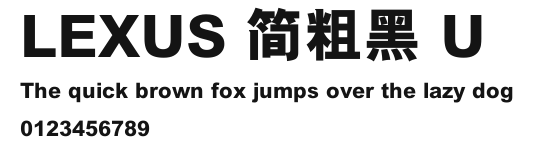
LEXUS 简粗黑 U Preview
• Font Name: LEXUS 简粗黑 U
• Font Style: Xbold
• Font ID: Monotype HeiGB Xbold
• Full Font Name: LEXUS 简粗黑 U
• PostScript Name: LEXUS-HeiS-Xbold-U
About LEXUS 简粗黑 U.TTF
LEXUS 简粗黑 U.TTF is a modern, elegant sans-serif font designed for ultimate readability and visual harmony. Perfect for branding, headlines, web design, and print materials.